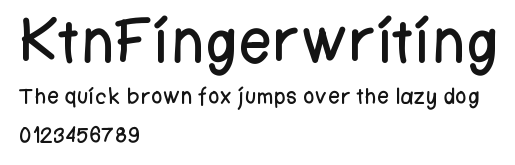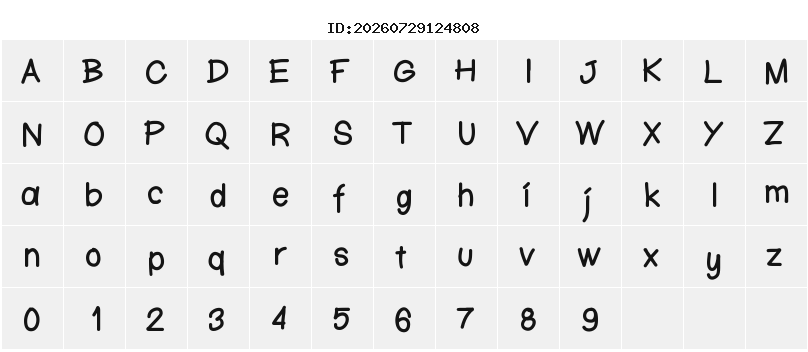
KtnFingerwriting Preview
About KtnFingerwriting.ttf
KtnFingerwriting.ttf is a modern, elegant sans-serif font designed for ultimate readability and visual harmony. Perfect for branding, headlines, web design, and print materials.